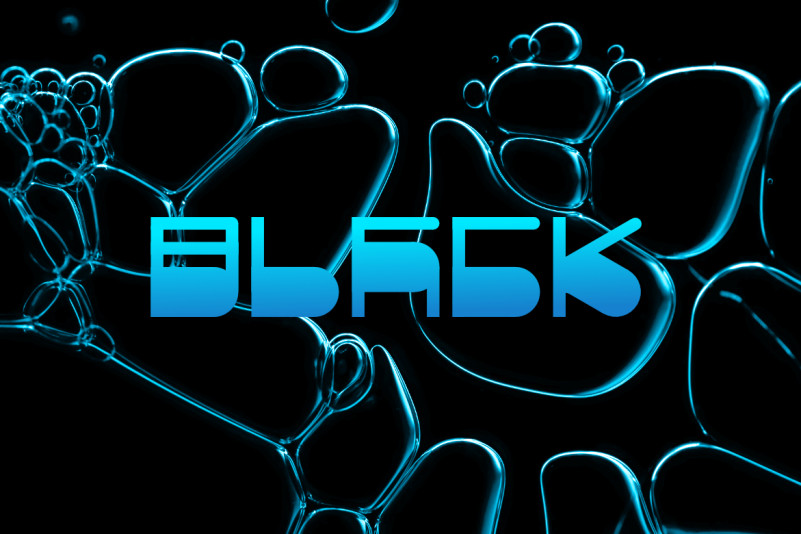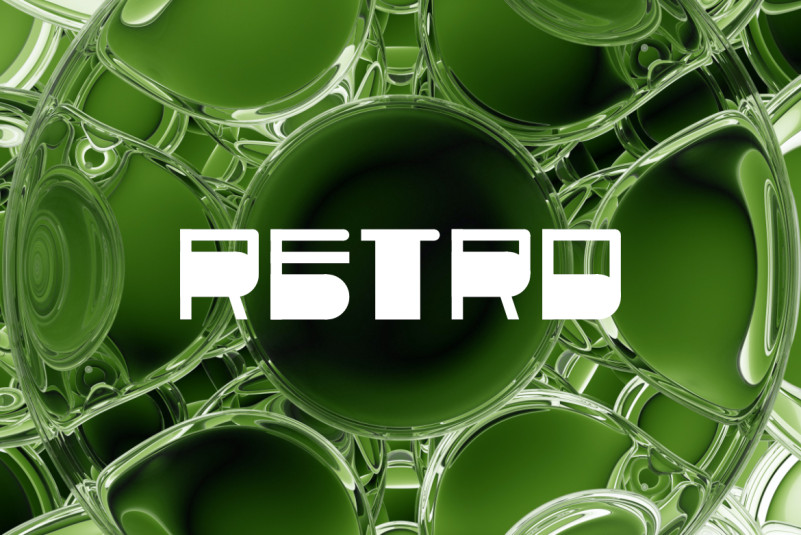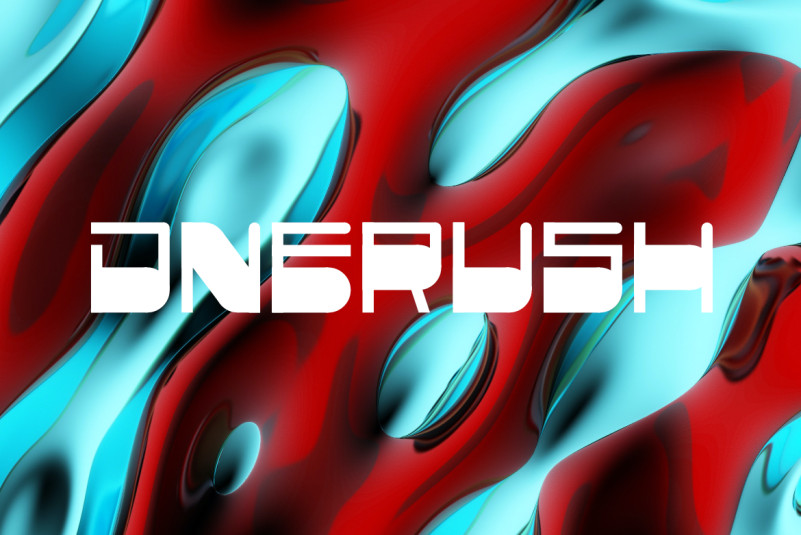
Knoo Pro Font
Knoo is a cool and casual looking display font. No matter the topic, this font will be an incredible asset to your fonts’ library, as it has the potential to elevate any creation.
Knoo is a bold tech font